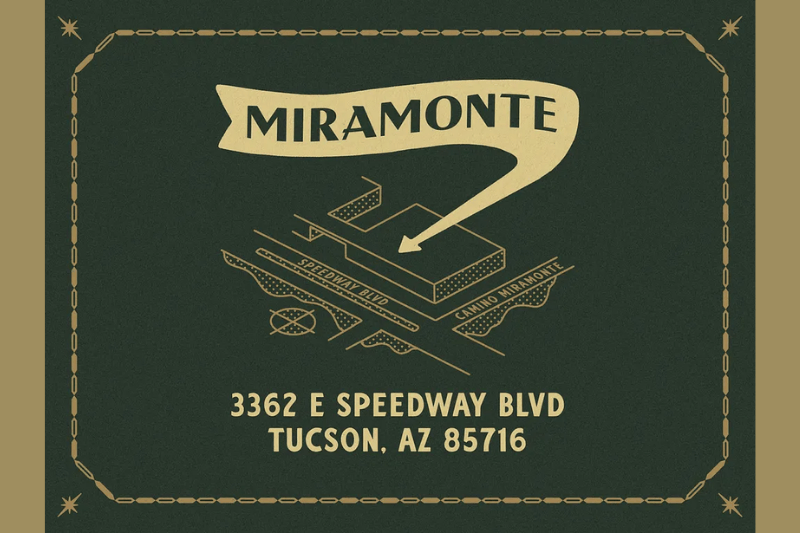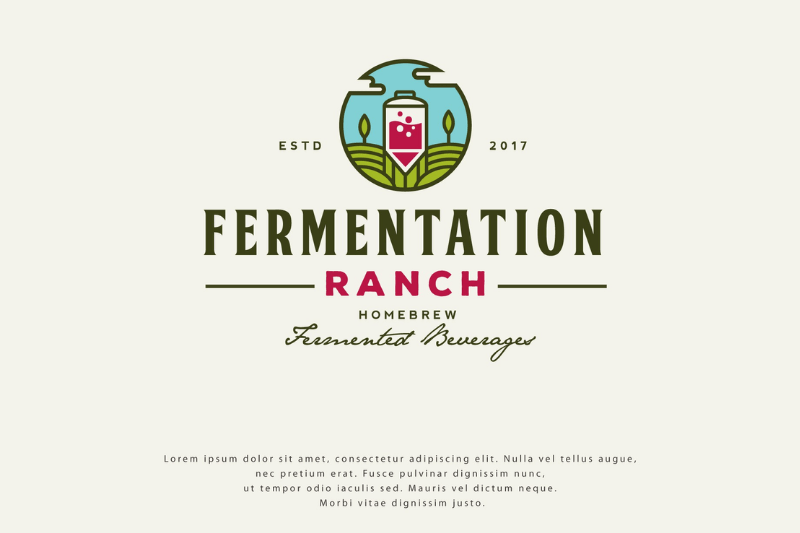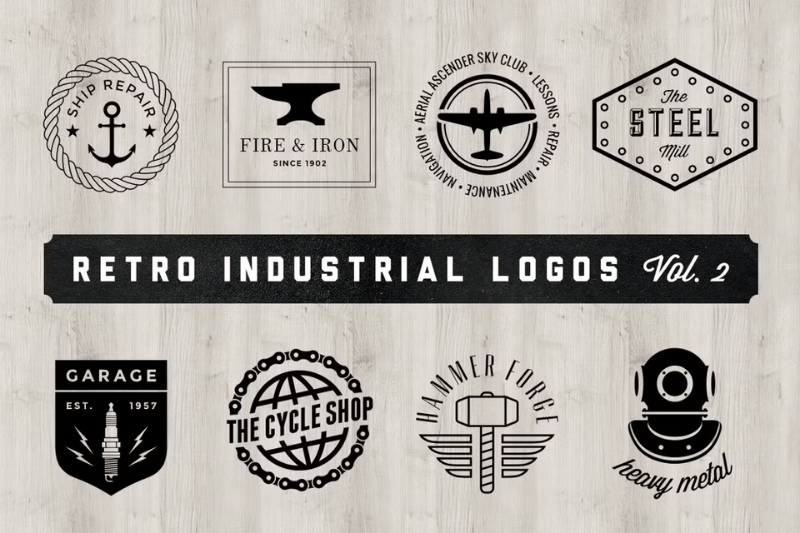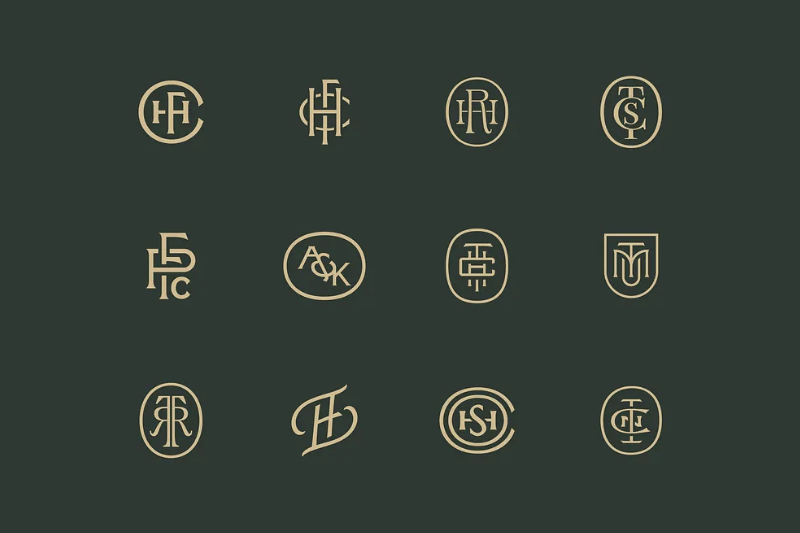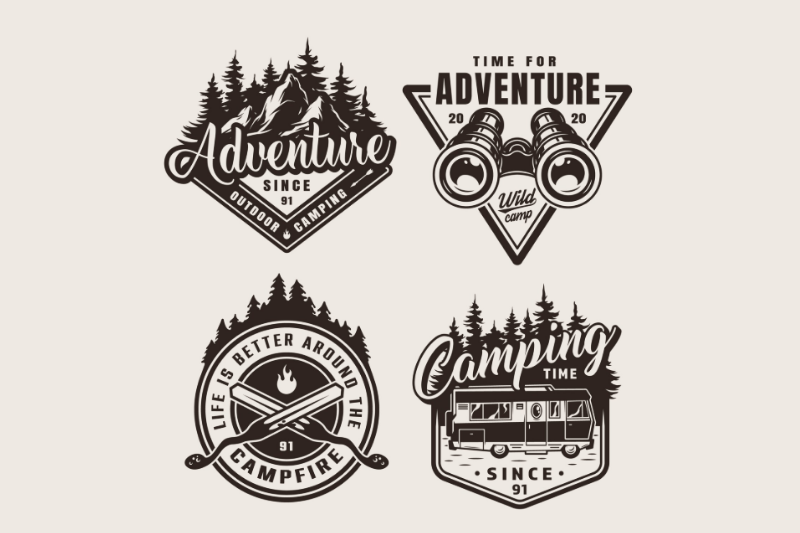
6 Captivating Modern Vintage Logo Styles for Contemporary Brands
Recently, many modern companies have chosen a modern vintage logo to boost their visual identity. This technique combines a warm, historic nuance with a modern, clean, and organized appearance.
Unlike traditional vintage styles with their intricate details, modern versions look simpler and easier to apply in various digital media. A modern vintage logo can evoke nostalgia while still meeting current branding design needs.
Hence, this article is the continuation of the explanation about basic vintage logo styles. Only this time, we will delve into six other styles that are more modern, specific, and refined. This type of style is ideal for use in modern cafes, fashion brands, and unique, characterized lifestyle products.
Modern Vintage Monogram Logos
A monogram becomes the simplest modern vintage logo. This type of logo focuses only on one or two initial letters, carefully designed to look clean and elegant. Although rooted in the classic monogram style, the modern style presents a neater, low-contrast, more balanced letter proportion, making the design look professional and not excessive.
Furthermore, classic elements such as smooth serifs and flare accents are retained to maintain the nostalgic feel without overdoing it. As a result, the monogram style will have a vintage flavor, appear more simple, and be adaptable to different sizes and media.
Modern vintage monogram logos offer visual identity that is strong without needing many additional elements. As a result, they are incredibly popular for premium brands, including modern cafes, boutiques, and handcrafted products with a professional, timeless, and flexible feel.
Modern Industrial Vintage Logos
The next modern vintage logo is the modern industrial vintage style. This design is clean and structured, drawing inspiration from 1940s to 1960s workshops, manufacturers, and signage. This design stands out for its solid squares and circles, as well as its simple geometric shapes that provide a strong and steady appearance. This method results in a vintage style with a masculine spirit that appears more current and is fit for a variety of media.
The typography in this style is usually slab serif or industrial sans-serif, characterized by strong and easily readable features. You can find typography that suits this style by visiting vintagefont.net.
Modern industrial vintage style often uses colors like charcoal, steel blue, copper, or earthy brown. These colors can create a stronger and more refined vibe compared to classic vintage industrial styles, which are typically heavy and textured.
This style works perfectly for brands that want to appear tough yet professional. So it’s no surprise that modern industrial vintage logos are often used for modern barbershops, branding workshops, beverage labels, and lifestyle brands that want to project a strong image without losing the vintage touch.
Modern Illustrative Vintage Logos
Unlike traditional illustrative vintage styles with their intricate details and textures, the modern version utilizes clean lines—monolines, thin outlines, and silhouette shapes—to make it easier to recognize. Modern illustrative vintage logo style combines simple illustration with minimalist, classic aesthetics. This modern vintage logo is perfect to present a nostalgic value in your design without making it look too heavy.
Illustrative motives used usually relate strongly to the brand’s character, for example, mountains representing outdoor equipment and fresh ingredients for culinary brands. The logo details are simple yet readable in various sizes and media, including digital platforms and product packaging.
This is a popular modern vintage logo style for coffee roasteries, handmade bakeries, outdoor brands, and more. It is especially applicable for brands that wish to convey warmth, personality, and modernity at the same time. Using this style will allow a brand to have a personalized visual character that is not too complex.
Mid-Century Modern Vintage Logos (1950-60s Reimagined)
This mid-century modern vintage style takes inspiration from the design of the 1950s-60s era. It is popular for its unique geometric style, low saturation colors, and sleek typography. In its modern version, these elements are simplified to appear neater, cleaner, and thus easily adaptable to contemporary branding. This logo style showcases visuals that retain their vintage energy while embracing a more contemporary approach.
Mid Century Modern Vintage LogoThis logo not only relies on intricate details but also depends on the shape and color. A low-saturation color palette like pale teal, smooth coral, or butter yellow is perfect to evoke a serene atmosphere that is harmonious with contemporary aesthetics. By combining thin serifs with thin sans-serifs, you can find balance between vintage character and maintain contemporary visual needs. That’s why a mid-century modern vintage logo can feel warm without feeling excessive.